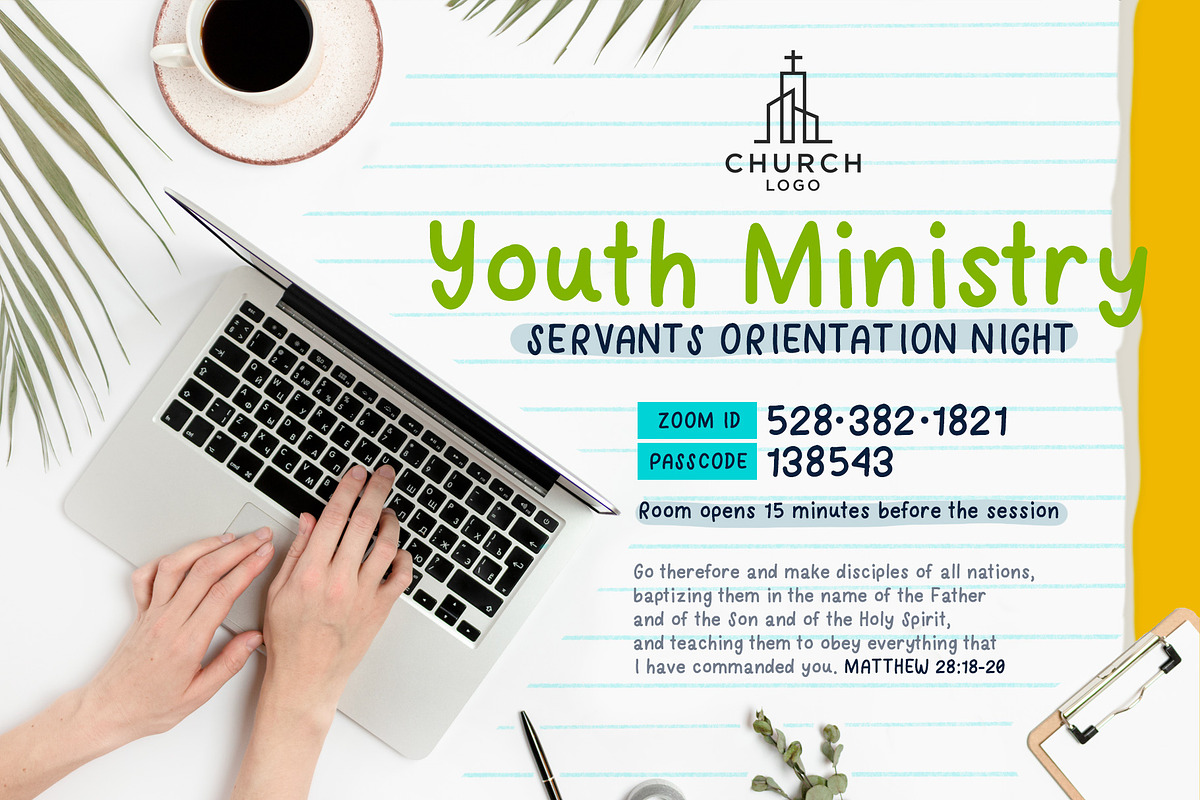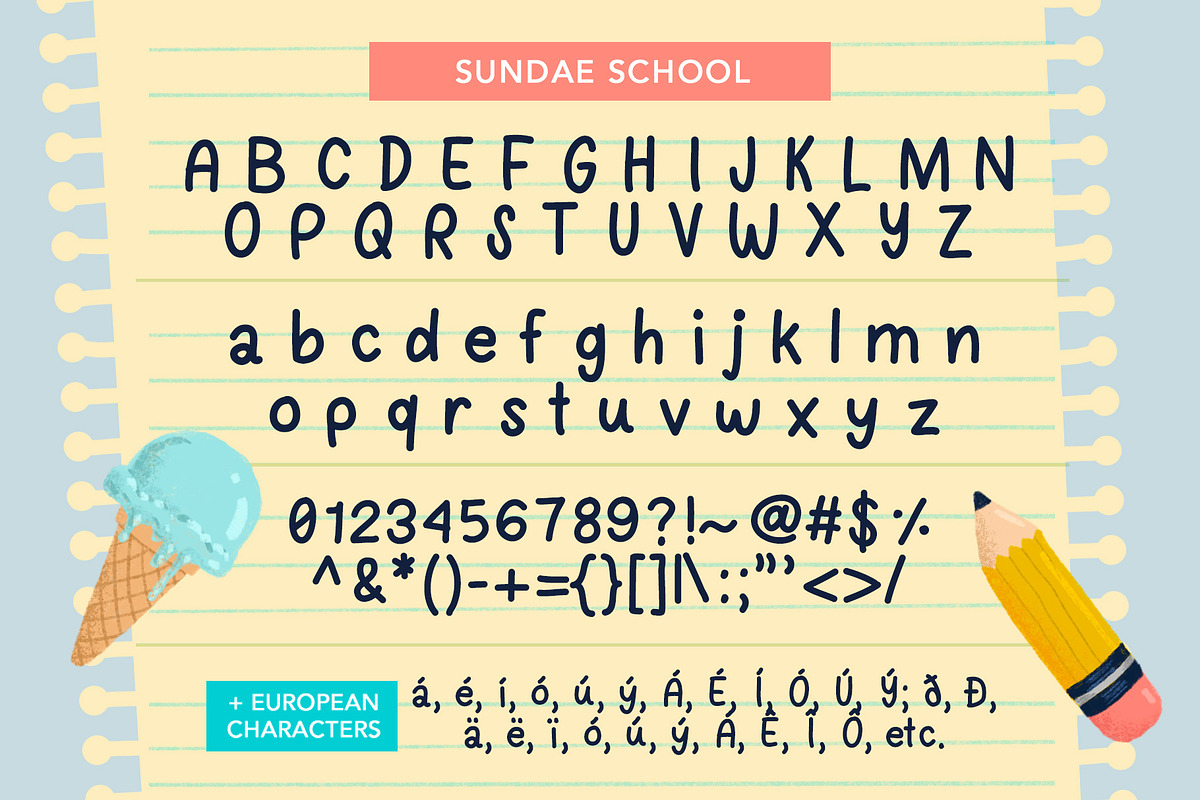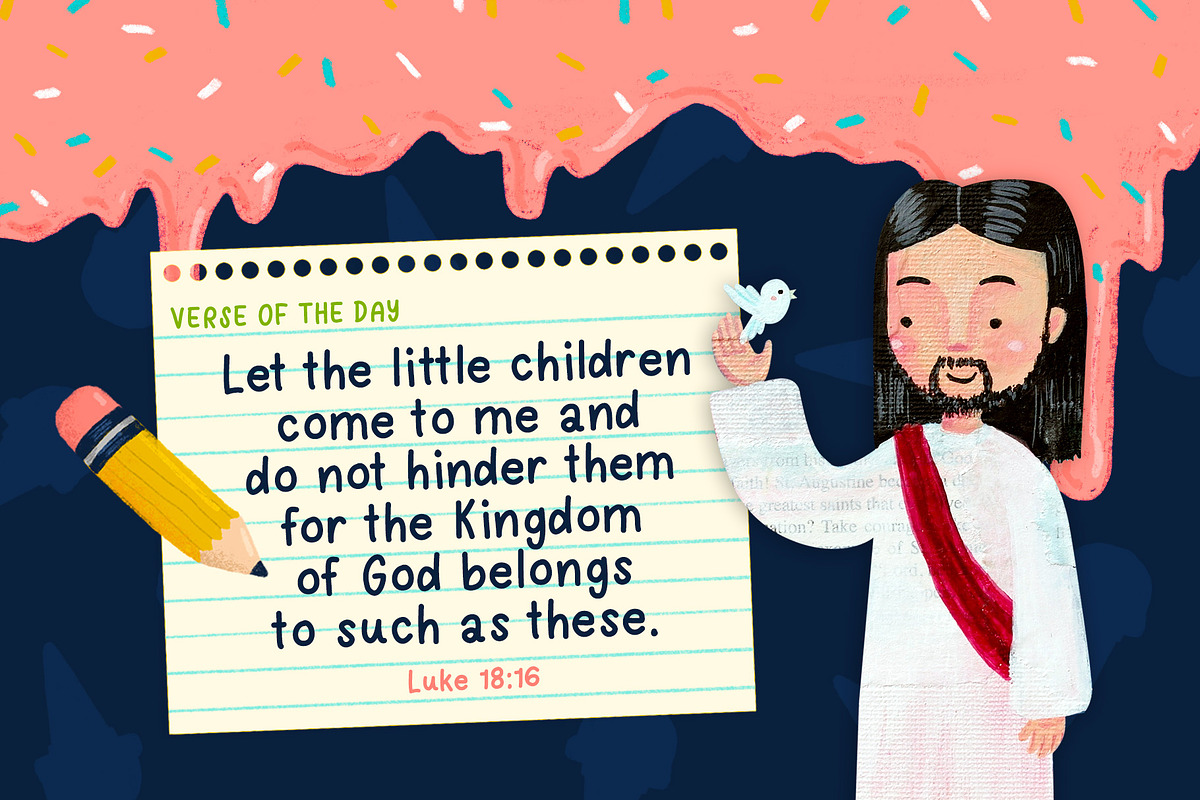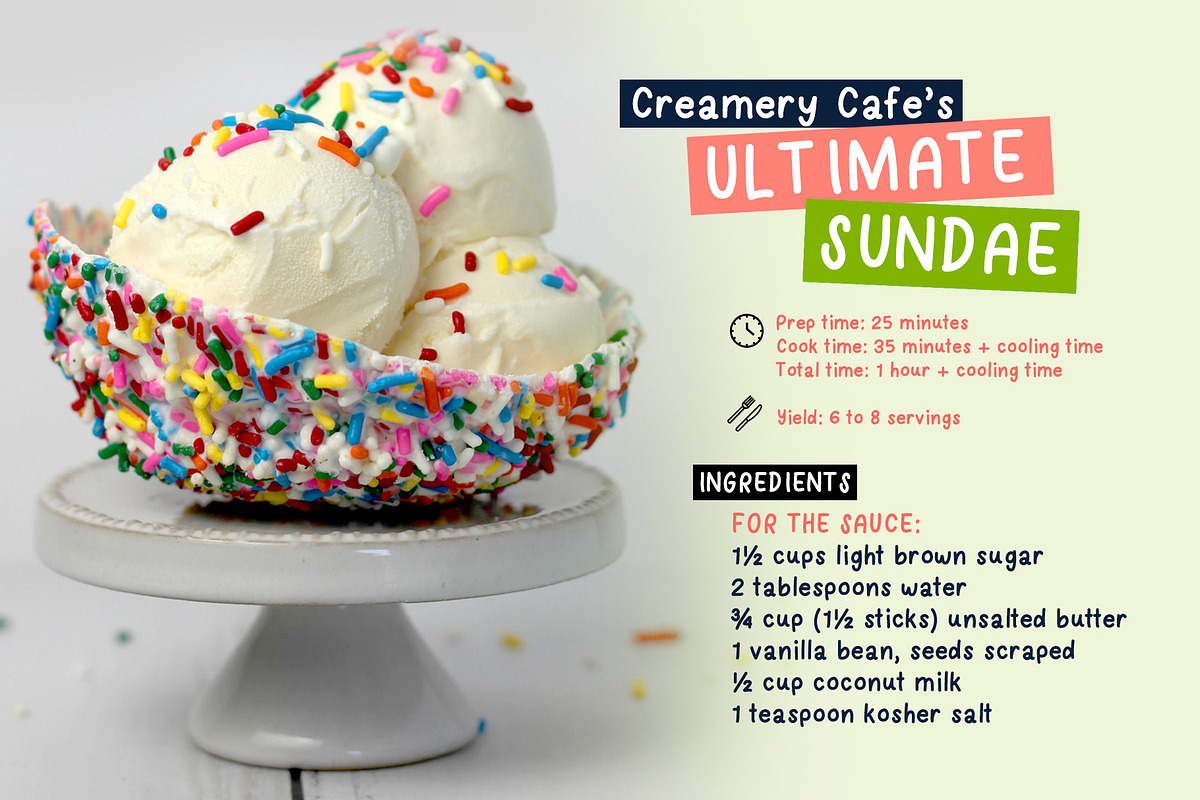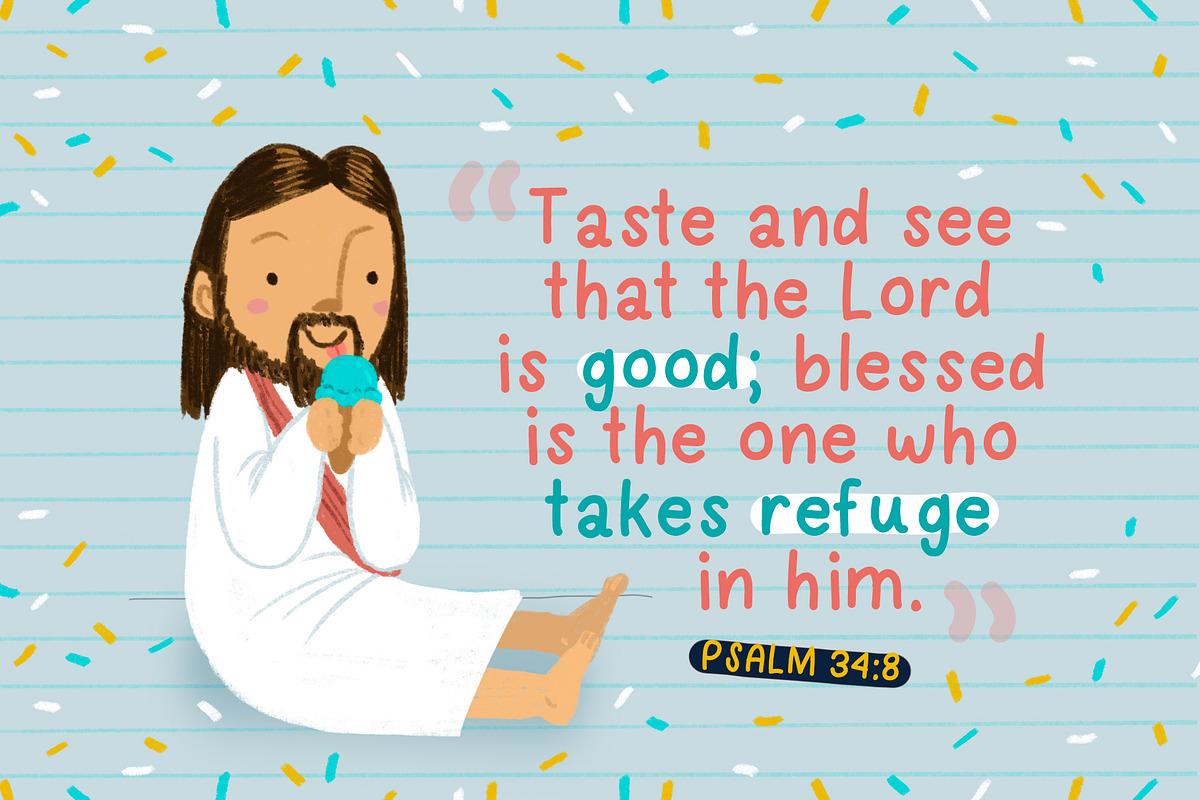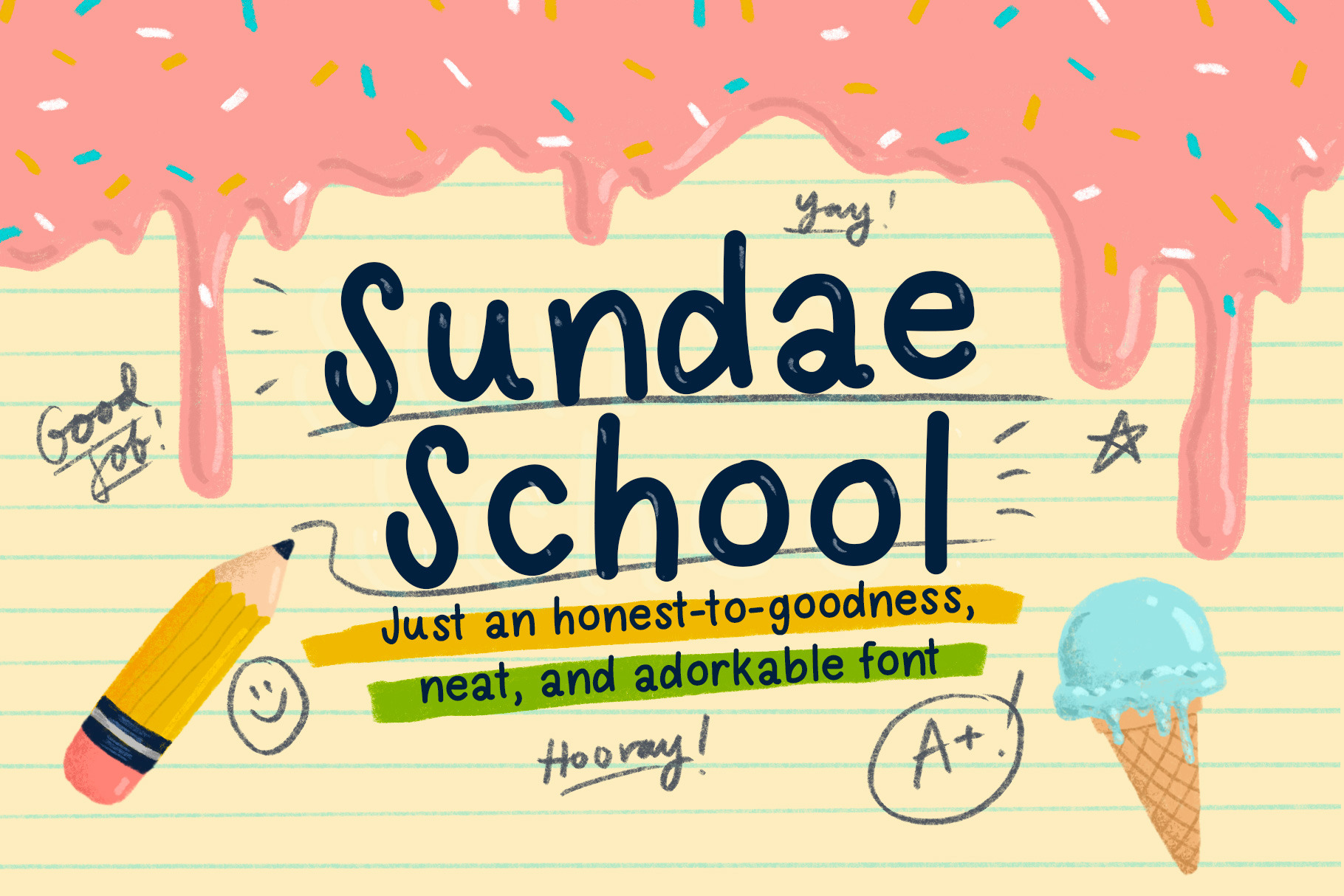
Sundae School Font
This is the coolest school! Sundae School is a fresh and neat font that's great for both display and legibility. Versatile, cute without being cloying, fun without being frivolous, with just the right amount of charm and authority. Sundae School is a great font for social media quote cards, school and church bulletins, websites, posters, t-shirts, and all else you can think of.
- All uppercase
- All lowercase
- Numerals and punctuation
- European language characters